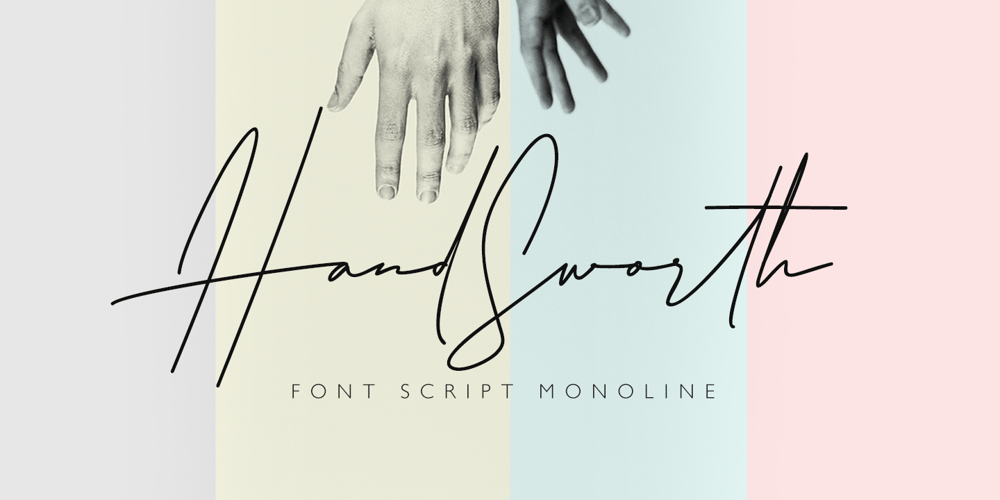
Hand Sworth Font Family was designed by Roiyani Teungku and published by Artisan Studio. Hand Sworth contains 1 styles and family package options. DescriptionHand Sworth a work that is purely a result of handwriting, has a natural characteristic. this is perfect for invitations, signatures, blogs, social media, business cards, product brands.Hand Sworth has Stylistic standard, Stylistic Alternates and ligatures. and includes uppercase and lowercase letters, numbers and punctuation marks.FILE INCLUDE Hand Sworth (OpenType,PUA)Open Type features can be accessed by using OpenType smart programs such as Adobe Photo Shop, Adobe Illustrator, Adobe Indesign, Corel Draw and Microsoft Office.special greetings for all, all of us all smoothly in running the routine